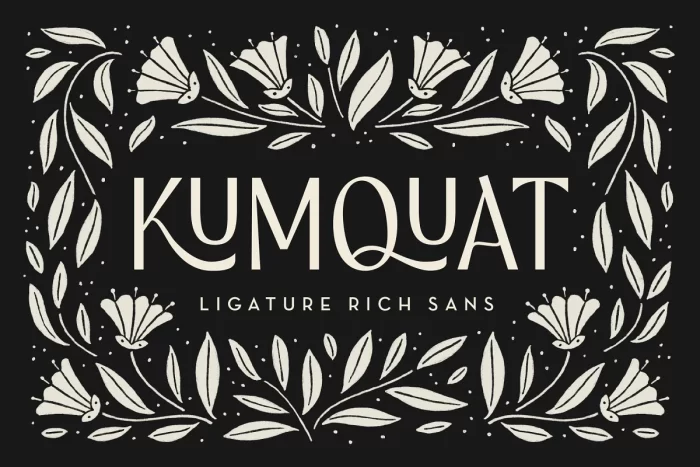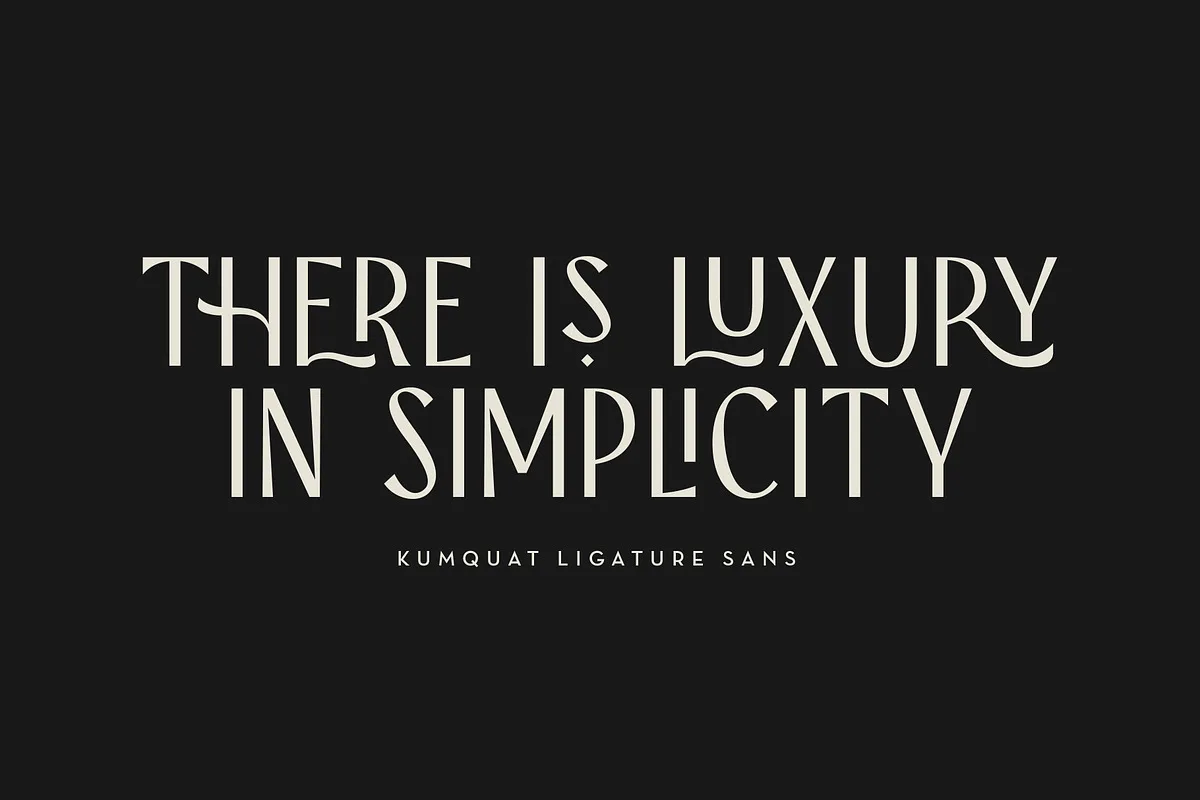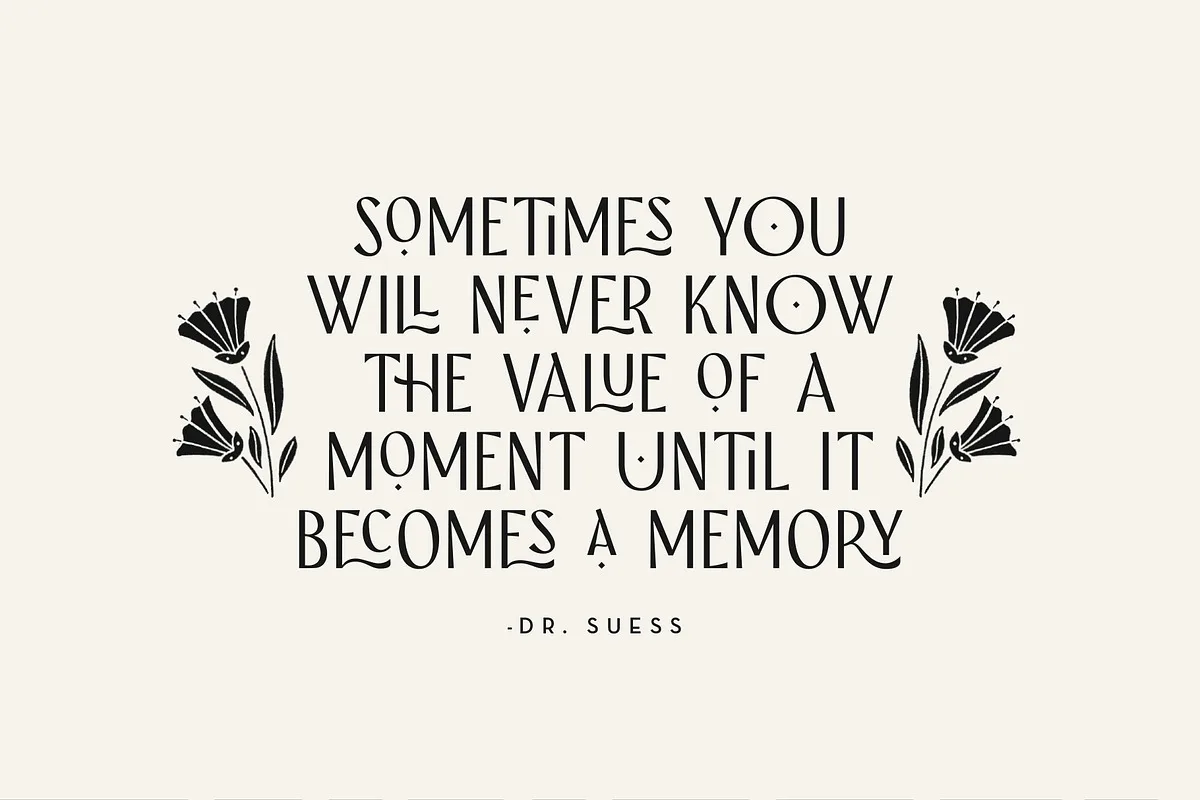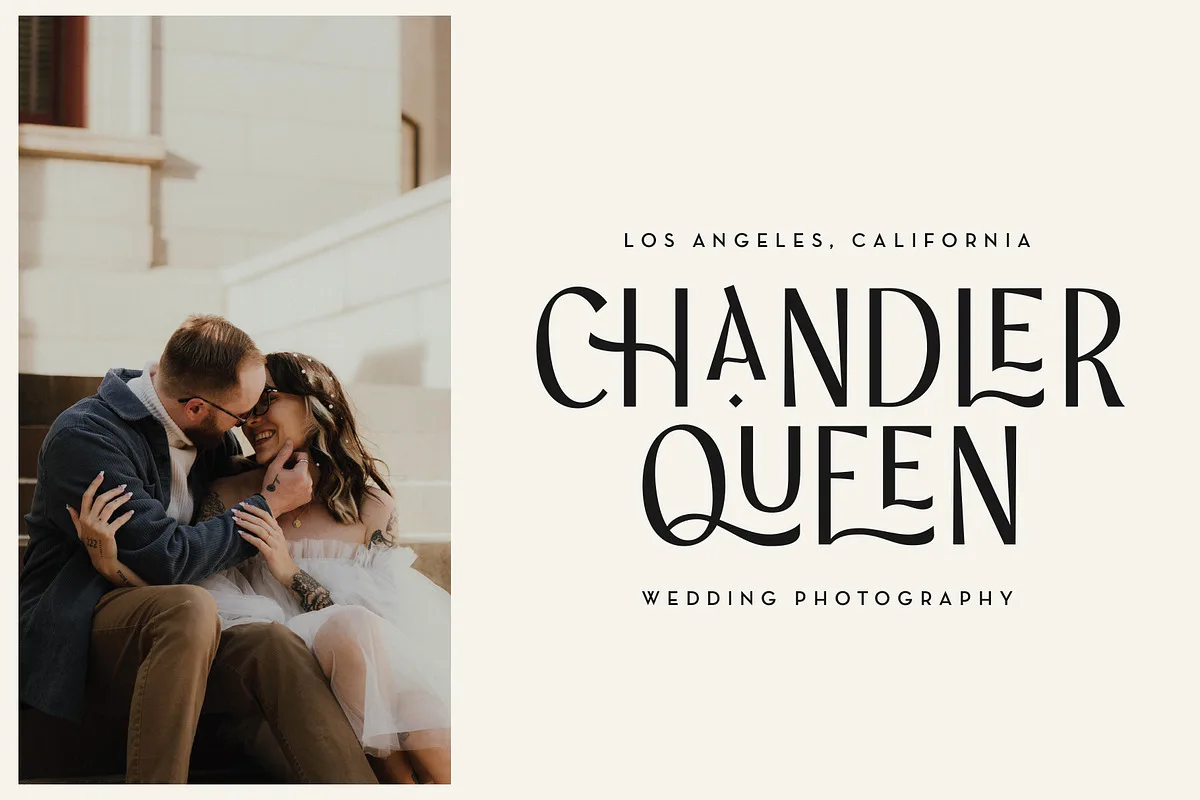
Download Kumquat Font – an elegant, ligature rich sans display font. It has a modern and sophisticated feel while still being fun and approachable! Kumquat is inspired by hand lettering and symmetrical floral art – incorporating many letters that fit together while still filling a designated space.
With so many alternatives and ligatures, each word can be customized to fit the needs of your project.